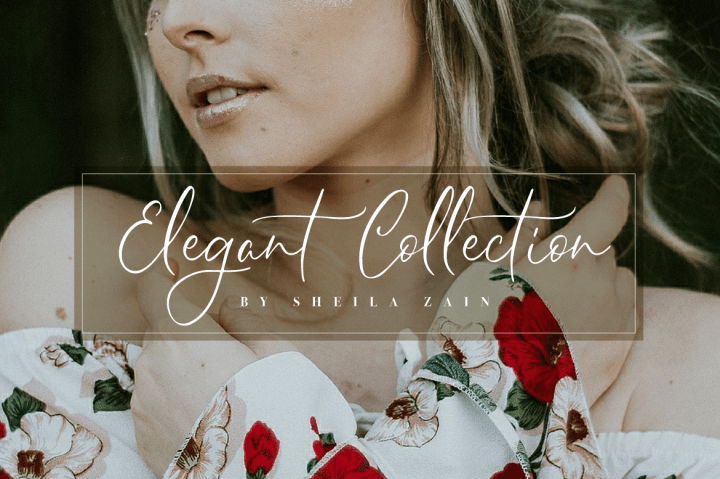
Sheilazain Script Font
Hi there! Let me introduce Sheilazain Font – a new elegant font with romantic feels and natural. Sheilazain Script Font was designed by Typia Nesia. Sheilazain an elegant and modern calligraphy / cursive font. Sheilazain is perfect for your up coming projects. Such as modern invitation design, branding, stationery design, blog design, modern advertising design, card invitation, art quote, home decor, book/cover title, special events ( wedding, birthday, etc ), and any modern elegant calligraphy needs.